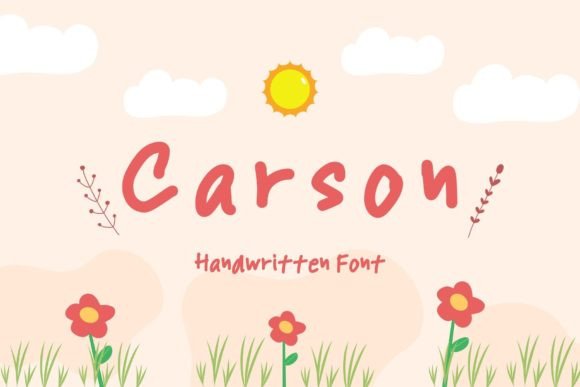
Dive into the world of enchanting scripts with ‘Carson’ Fonts, a mesmerizing collection of handwritten script fonts that capture the essence of charm and legibility. Crafted with meticulous care by No.9 Lettering, these fonts embody the beauty of fluid strokes, playful curves, and delightful details that bring life to your creative projects.
‘Carson’ Fonts are not just ordinary fonts; they are an artistic expression of individuality and style. Designed with a focus on readability, these scripts flow effortlessly, inviting your audience to immerse themselves in your content. Whether it's a heartfelt letter, an engaging blog post, or a captivating social media caption, ‘Carson’ Fonts ensure that your words dance off the screen, leaving a lasting impression.
Step into a world of endless creative possibilities with ‘Carson’ Fonts. Whether you're designing a whimsical T-shirt, creating a heartfelt mug with a personal message, adding a touch of charm to your wall art, or crafting a unique bag that showcases your personality, these fonts are your perfect companions. Unleash your imagination and let the playful characters of ‘Carson’ Fonts bring your designs to life.
With ‘Carson’ Fonts, you can effortlessly create digital designs that captivate and inspire. Whether you're a seasoned designer or just starting out, these fonts provide the perfect foundation for stunning digital planners, engaging Bullet Journals, and captivating presentations. Let your creativity soar as you weave words into works of art, leaving your audience spellbound.
The versatility of ‘Carson’ Fonts extends far beyond the digital realm. Embark on a crafting journey like no other as you transform ordinary objects into extraordinary works of art. Design greeting cards that warm hearts, create invitations that leave a lasting impression, and explore the endless possibilities of sublimation printing. With ‘Carson’ Fonts, every project becomes a canvas for your creativity.